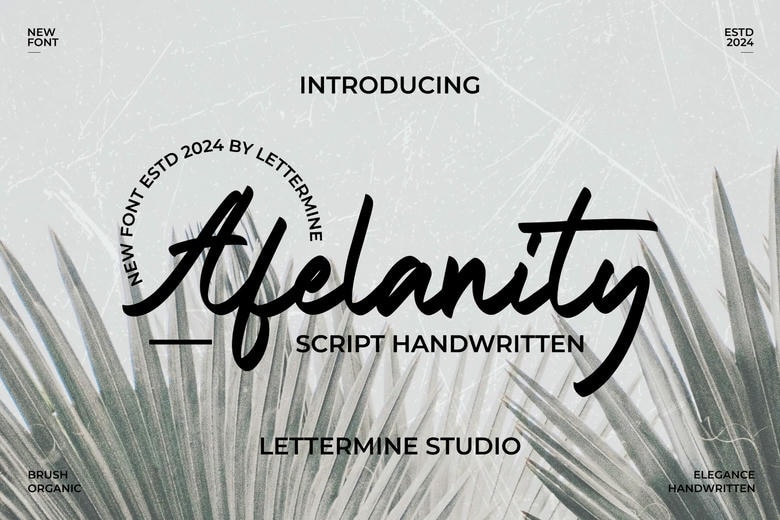
Afelanity is a beautiful handwritten script typeface which is created to warm your project with the feeling of personal and nobility. Because of its fluidity, as well as optimized ligatures this font is suitable for high quality designing, particularly when combined with legibility. Afelanity, in particular, feels like it fits a ‘middle of the road’ design need, touching on higher style needs but catering well to functional needs.
Afelanity Handwritten Script Font